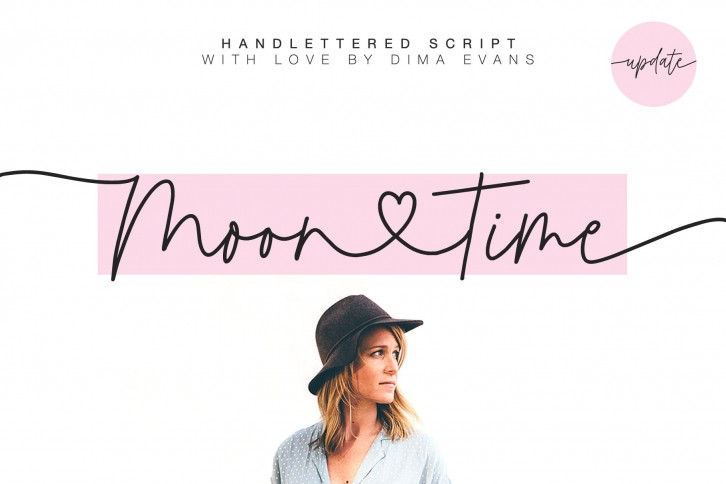
MOONTIME SCRIPT TRENDY TYPOGRAPHY
Font Updated:
• Heart Swashes
• Added multilingual support
• Added Swashes for uppercase letters
• Added Swashes for lowercase letters
• Cricut support
This modern calligraphy script has been attentively written, with gentle curves to produce a font thats completely distinctive and original. It contains a full set of lower & uppercase letters, a large range of punctuation, numerals, and multilingual support. Perfect for adding a elegant and unique touch to your lettering projects and branding
Also with their help, you can create a Wedding lettering or beautiful frame for your home. Or just use for your small business, book covers, stationery, marketing, magazines and more.
• Uppercase swashes
• Lowercases Swashes
• Multilingual support
• Cricut support